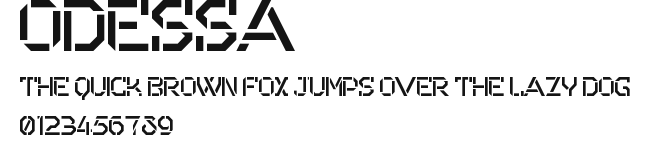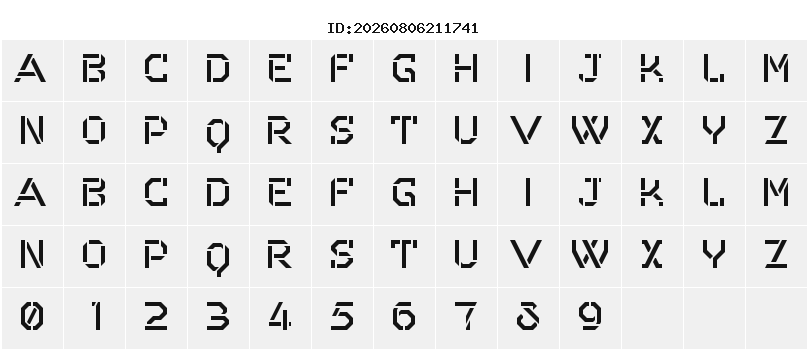
• Font Name: Odessa
• Designer: 1saac
• Description: ‚ÄúOdessa‚Äù was built with FontStruct
About Odessa.ttf
Odessa.ttf is a modern, elegant sans-serif font designed for ultimate readability and visual harmony. Perfect for branding, headlines, web design, and print materials.